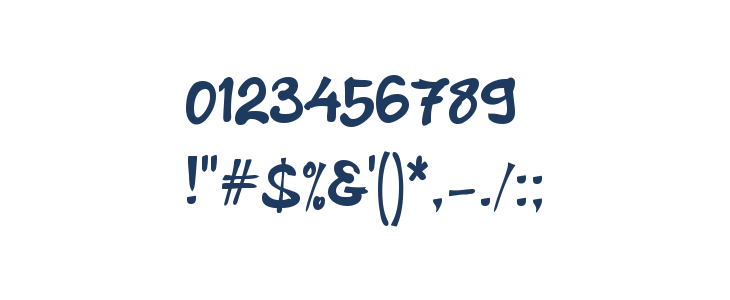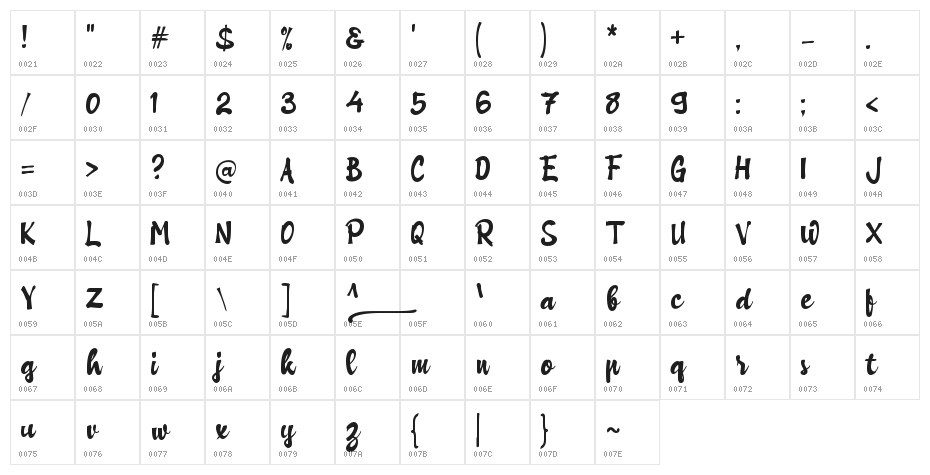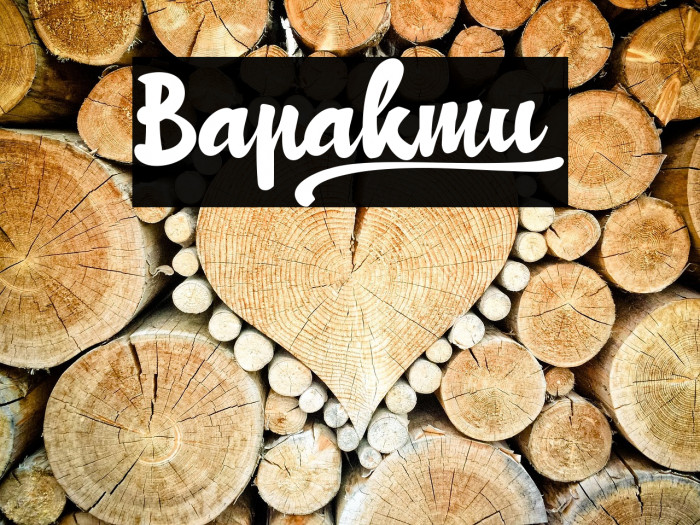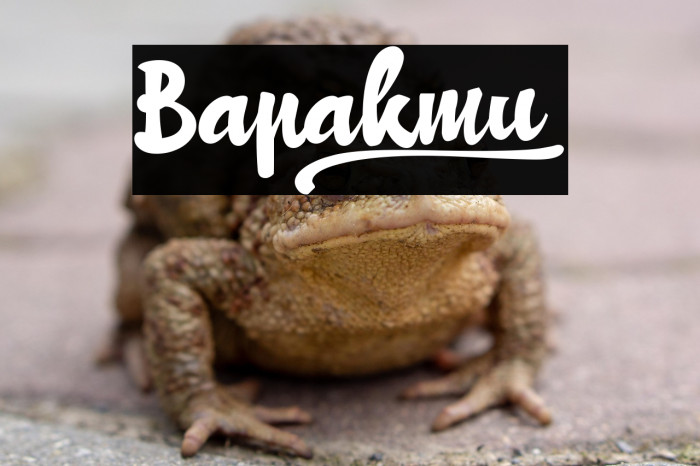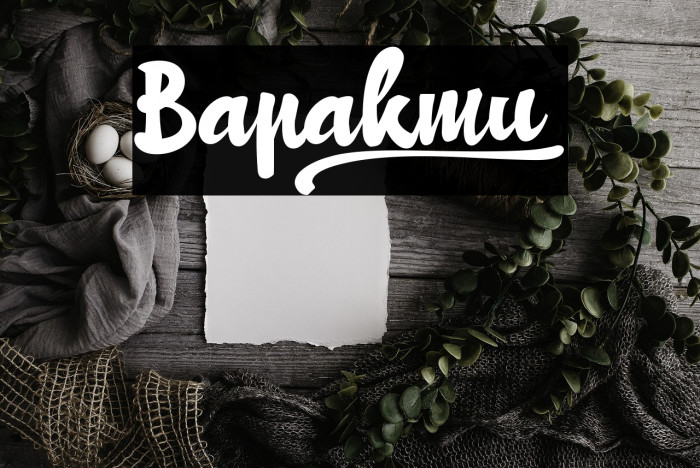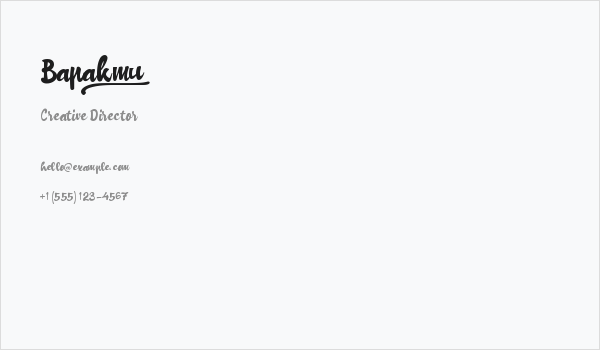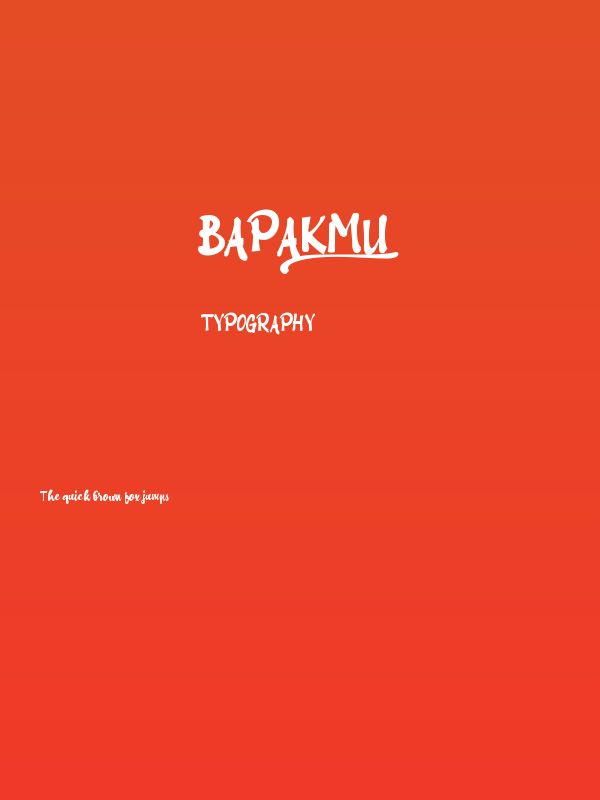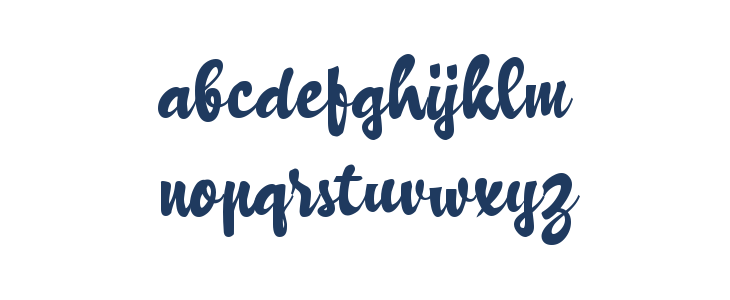
Bapakmu_ Font
Bapakmu_ Description
This font features a bold and playful script style, characterized by its thick, flowing strokes and a handwritten appearance. The uppercase letters are bold and slightly condensed, giving a strong presence, while the lowercase letters maintain a fluid, cursive style that adds a touch of elegance. The numerals are rounded and consistent with the overall playful theme. Special characters are well-integrated, maintaining the font's cohesive look. This font exudes a casual yet confident vibe, making it suitable for creative and informal applications.
| Overall Style | Playful, Casual |
| Proposed Projects | Ideal for greeting cards, playful branding, children's book covers, and social media graphics. |